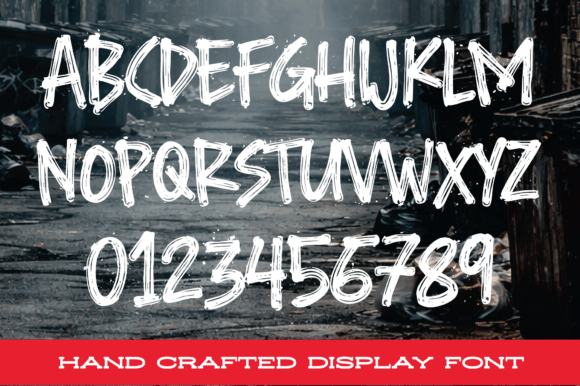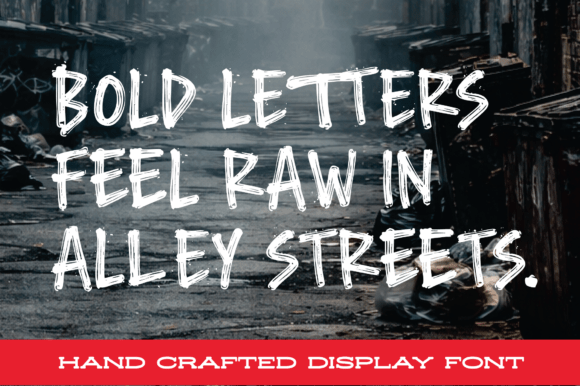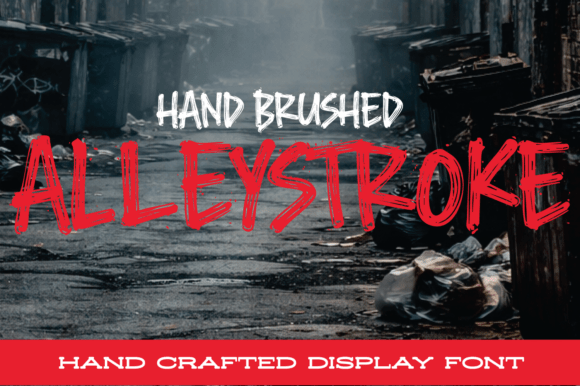
The Perfect Brush Stroke for the Bold and the Beautiful
Remember the thrill of discovering a hidden street art mural in an unexpected alleyway? The rush of adrenaline as you snap a photo, capturing the raw energy and unbridled creativity of the artist’s brushstrokes? That’s the essence of the Alleystroke Font – a digital representation of the wild, unapologetic spirit of urban art.
Developed to deliver an authentic hand-painted look, the Alleystroke Font is perfect for designers who want to add a touch of attitude and personality to their projects. With its rough edges, organic inconsistencies, and natural flow, this font is ideal for bold headlines, branding, posters, and any design that needs a little extra oomph.
Alleystroke Font Key Features
- Font Family: Alleystroke
- Unique Characteristics: Alleystroke features a unique blend of modern and vintage elements, with intricate details and subtle texture, making it suitable for a wide range of design applications.
Alleystroke Font Review
I recently had the chance to work with the Alleystroke Font, and I must say it’s an interesting choice. ✨ The font has a unique, handwritten feel that can add a personal touch to any design project. It’s perfect for creating a friendly, approachable vibe in branding, marketing materials, or even digital products.
One of the standout features of Alleystroke is its high level of customization. ✨ It comes with a wide range of styles, from casual to formal, making it suitable for various design applications. The font is also highly legible, even at small font sizes, which is essential for digital designs.
However, there are some limitations to consider. ⚠️ The font may not be the best choice for formal or professional projects, as its handwritten style can come across as unpolished or informal. Additionally, the font’s variability in letterforms can make it difficult to use in situations where precision is crucial, such as in body text or small captions.
Overall, Alleystroke Font is a solid choice for designers looking to add a unique, human touch to their designs. While it may not be suitable for every project, it’s an excellent option for creatives who want to convey a sense of personality and approachability. With its high level of customization and versatility, Alleystroke Font is definitely worth considering for your next design project.
- Unique, handwritten feel
- High level of customization
- Legible at small font sizes
- Wide range of styles
- Suitable for branding, marketing, and digital products
Getting the Most Out of Alleystroke Font
For optimal results, use Alleystroke Font in combination with bold, italics, or underlined text to create visually appealing designs. Experiment with different font sizes and styles to achieve the desired effect. Additionally, pair Alleystroke Font with other fonts to create a unique and eye-catching visual identity.
Alleystroke Font is suitable for a variety of applications, including logo design, branding, and digital marketing materials. Its unique style makes it an ideal choice for creating eye-catching headlines, titles, and captions. Use Alleystroke Font to add a touch of sophistication and elegance to your designs.